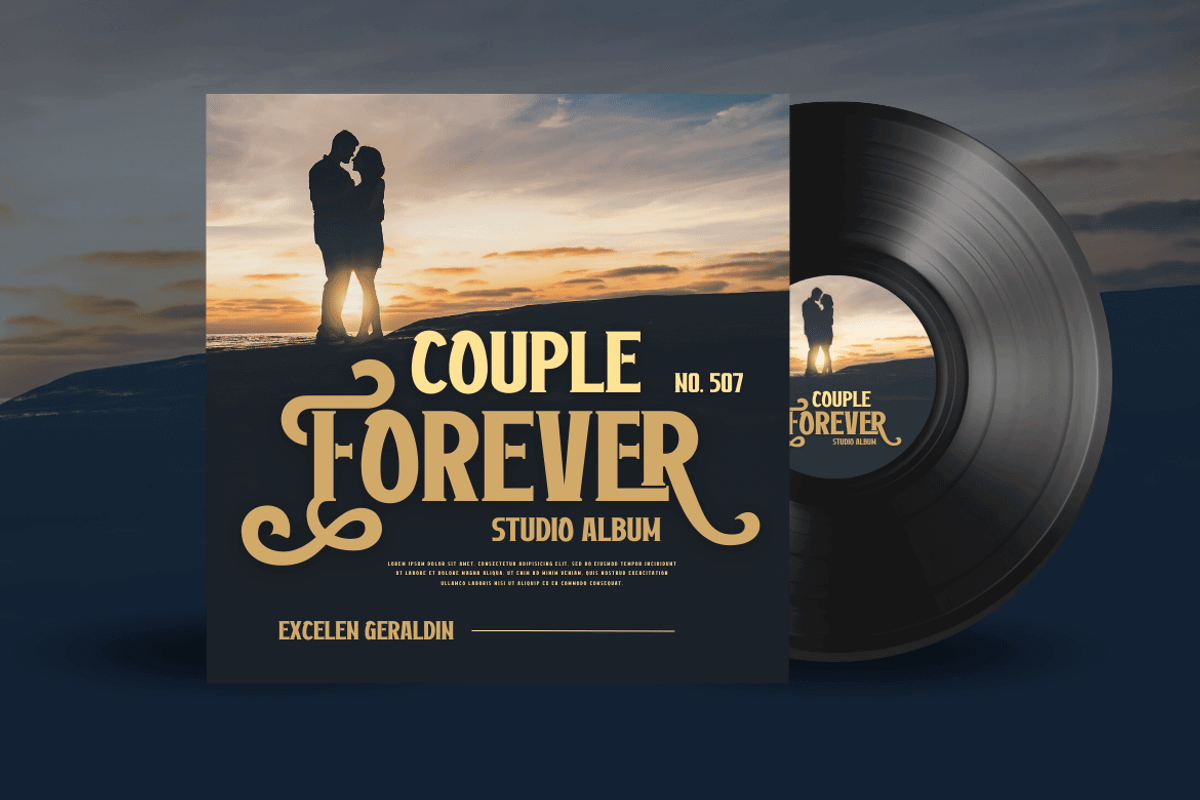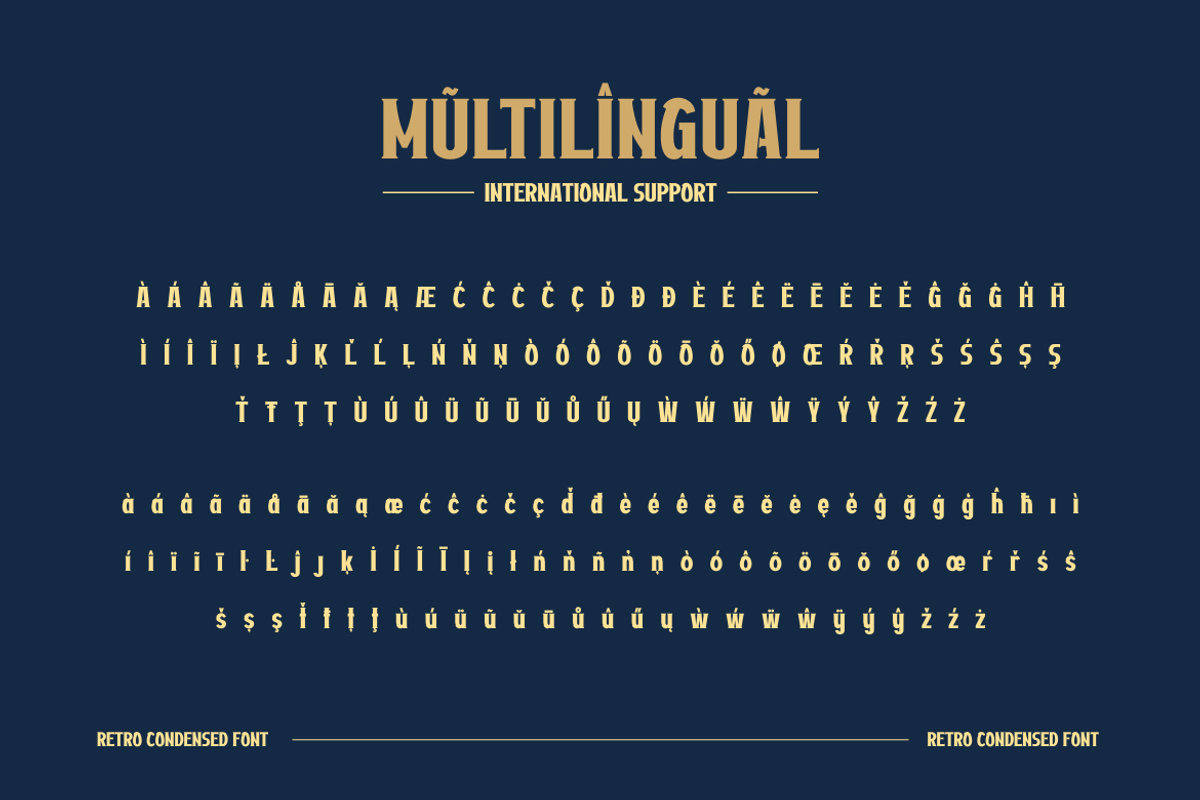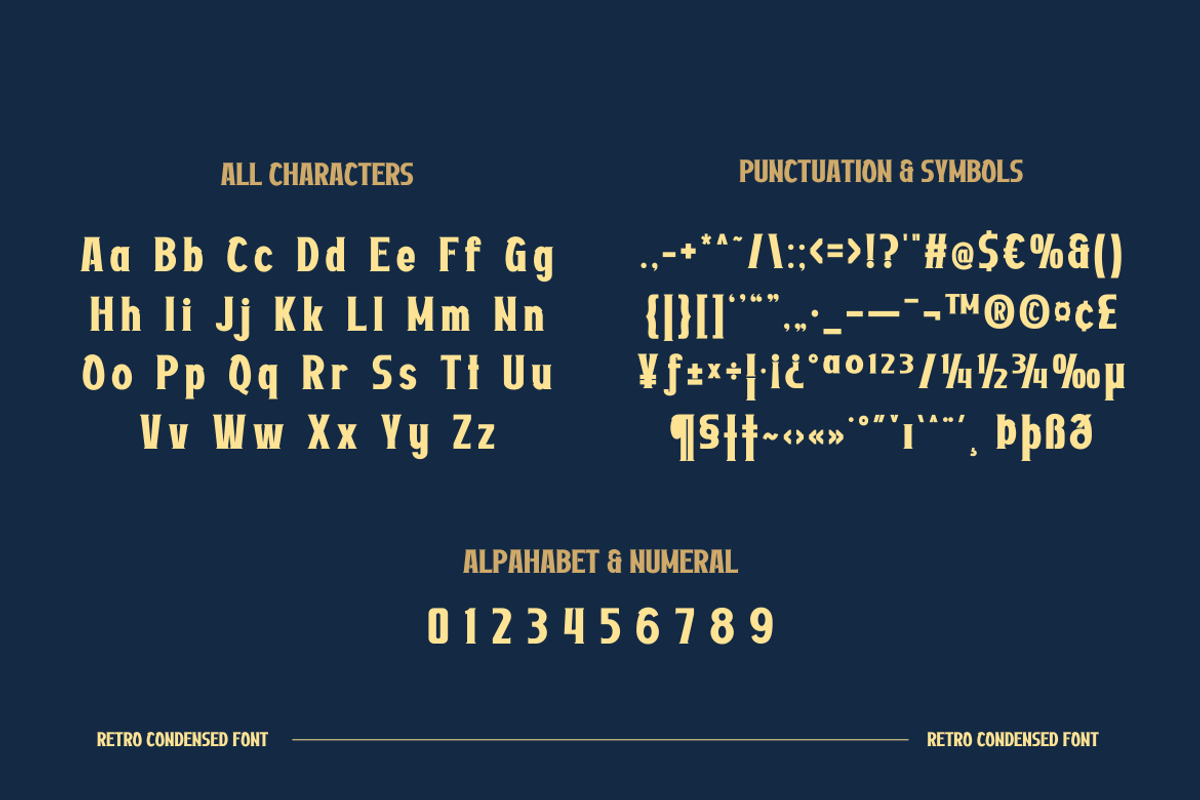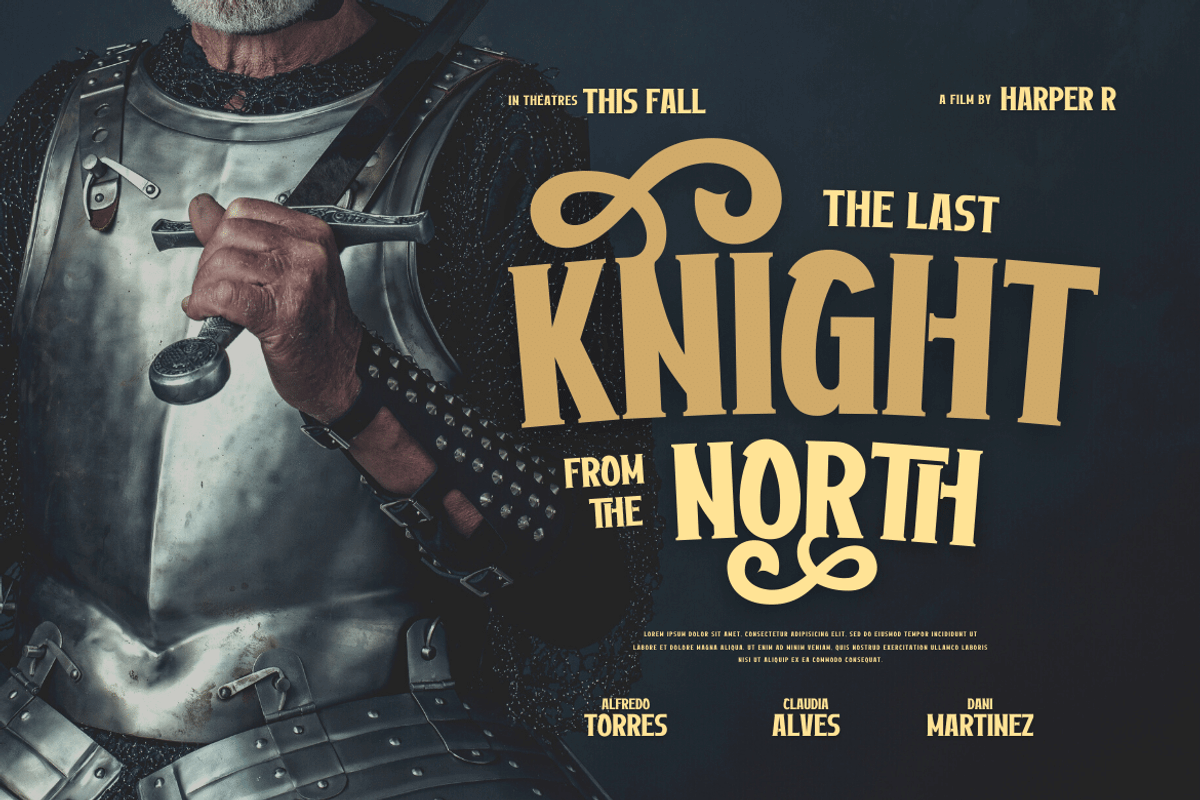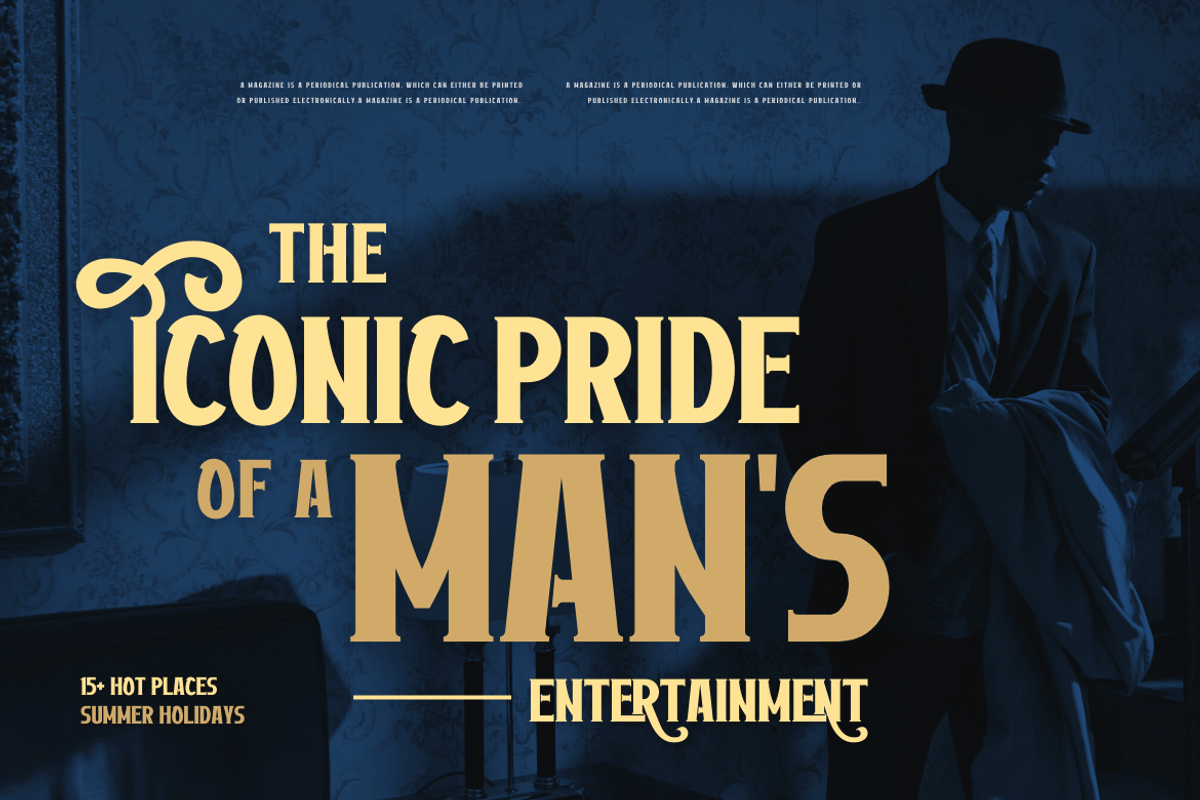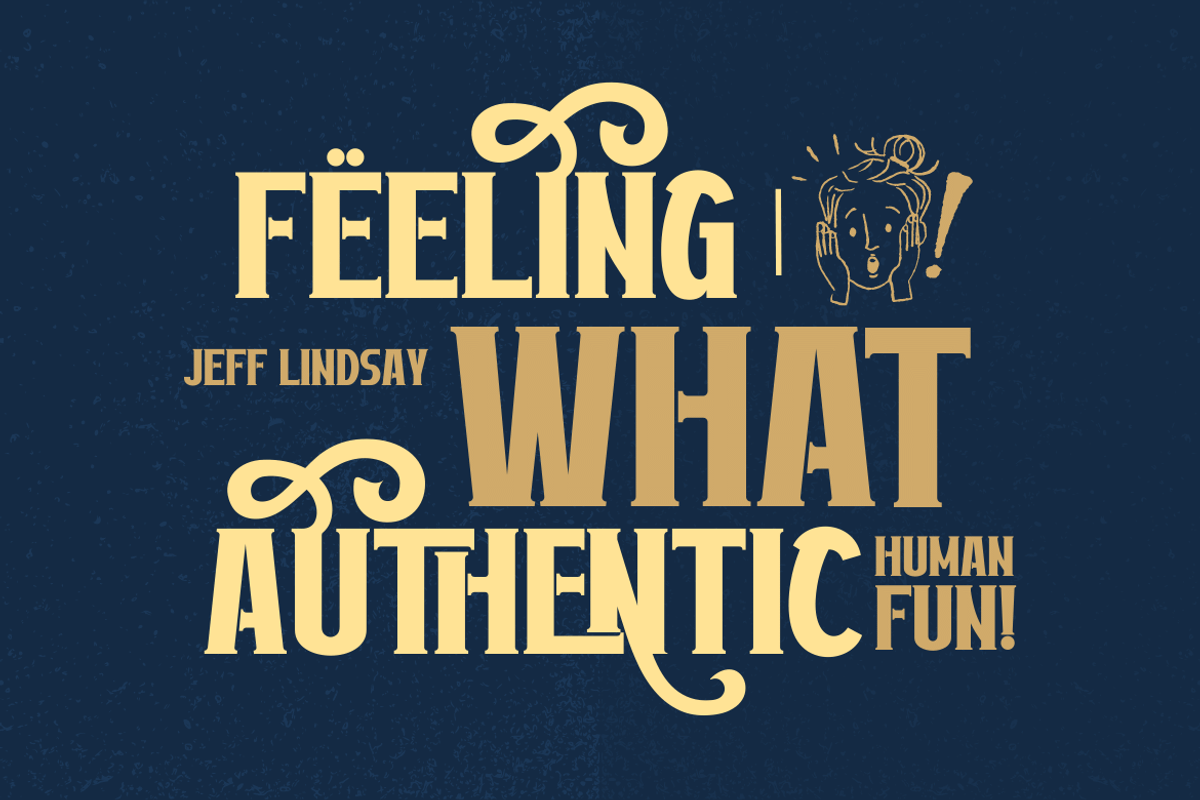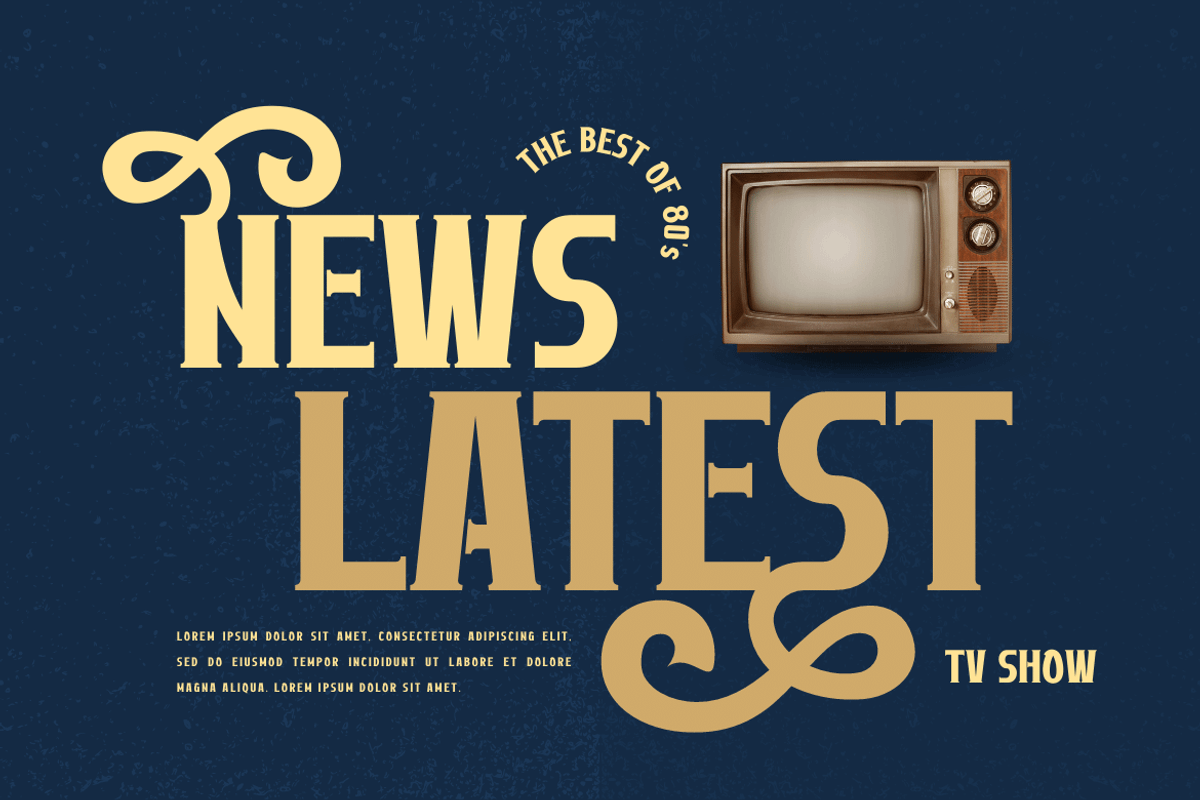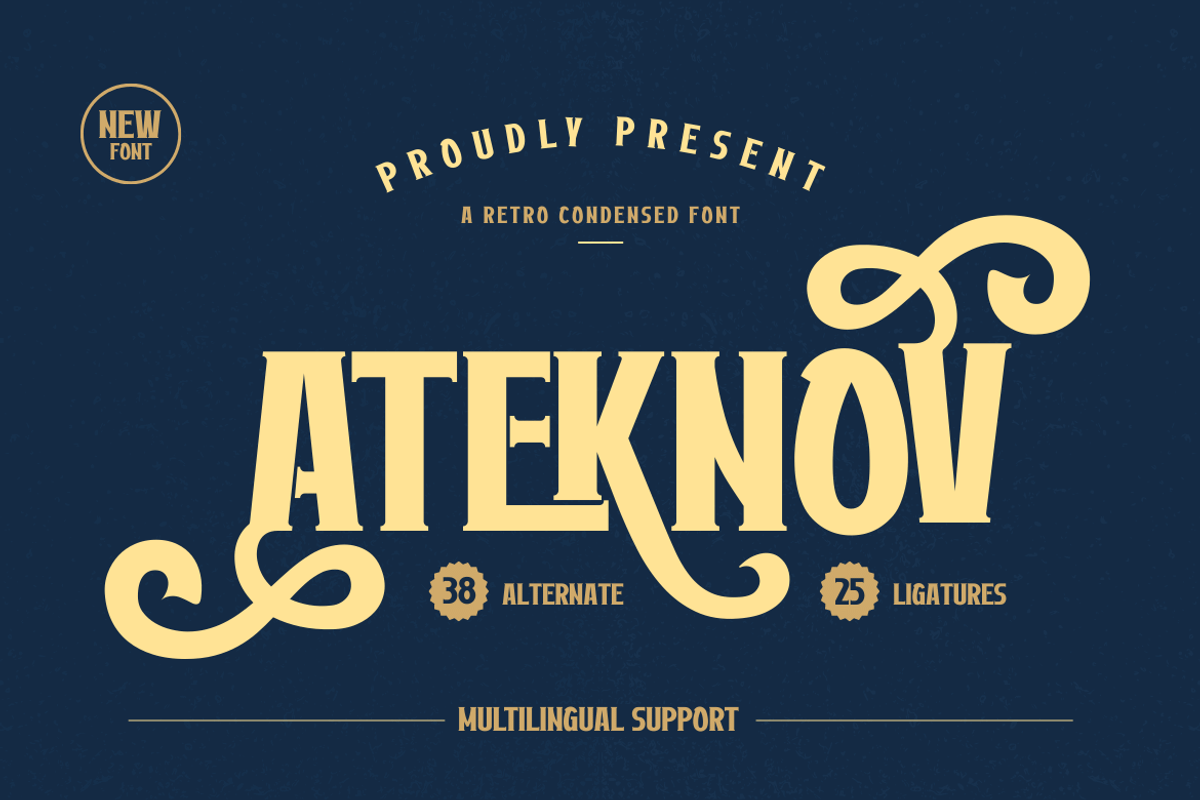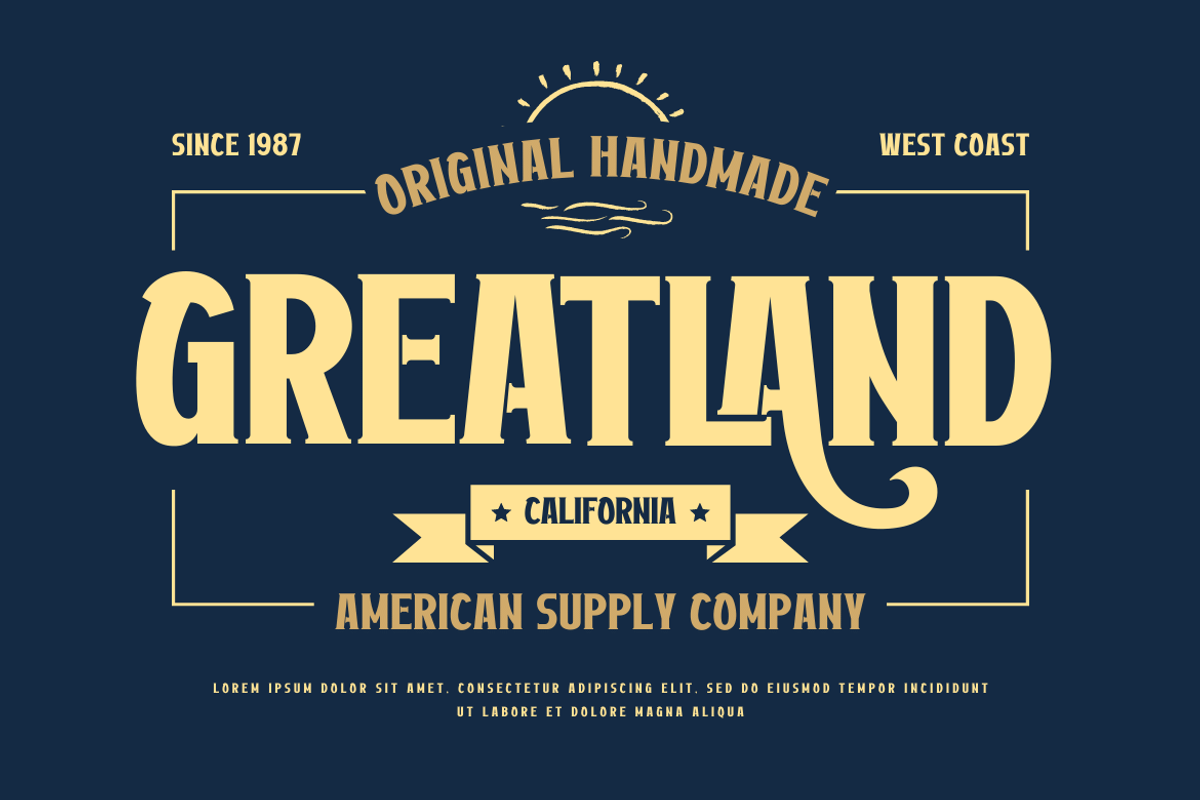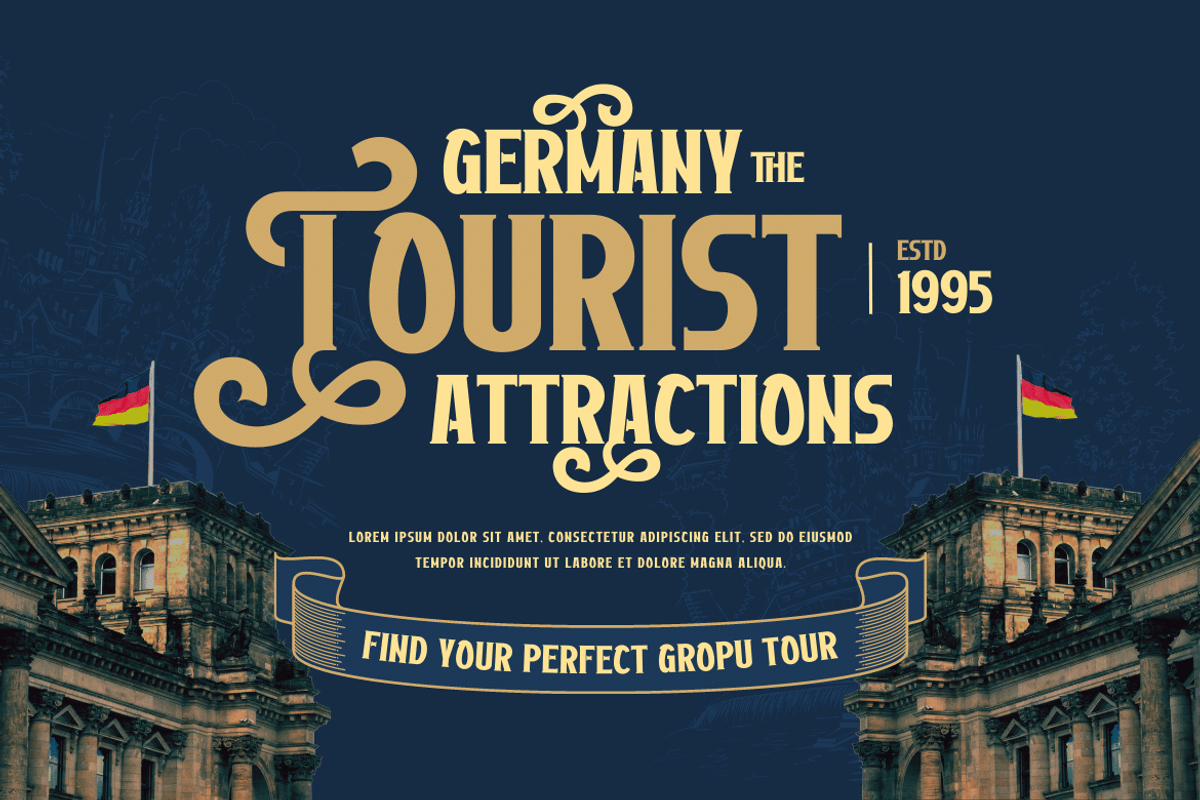
Ateknov | Retro Condensed Font
Introducing Ateknov, a retro condensed font that embodies classic elegance. This font is perfect for designers looking for a touch of nostalgia in their work. Ateknov features a clean and polished design with sharp edges and a condensed appearance that makes it a great choice for headlines, logos, and branding.
Ateknov comes equipped with alternate characters and ligatures, each with a unique and beautiful design that adds depth and character to your projects. The font also supports multilingual characters, making it accessible to a global audience.
Whether you’re creating a vintage-inspired design or a modern twist on a classic aesthetic, Ateknov is a versatile font that will elevate your work to the next level. Download it today and start exploring the possibilities.
- Alternate, Ligature